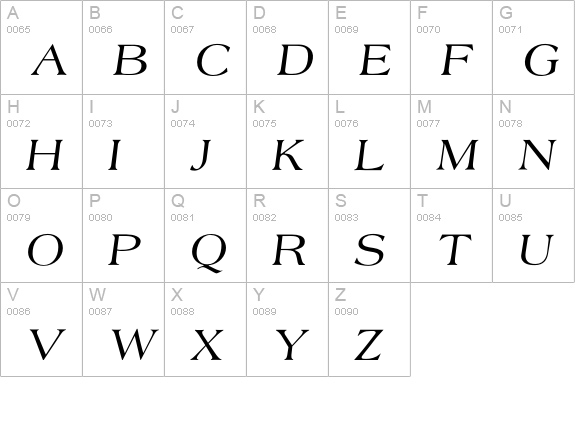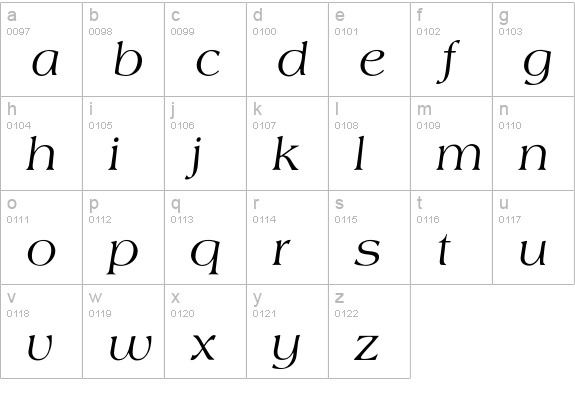
AmericanaItalic Font Details
The AmericanaItalic font embodies the essence of classic Americana design with a modern twist. Its elegant and sleek italic style exudes sophistication and charm, making it perfect for a wide range of design projects. Whether you're working on branding, packaging, invitations, or any other creative endeavor, AmericanaItalic adds a touch of timeless beauty to your work. The best part? AmericanaItalic is available for free download at FontsMarket.com. This means you can easily access this stunning font and incorporate it into your designs without any hassle. Don't miss out on the opportunity to elevate your projects with the elegant charm of AmericanaItalic. Download it today and see the difference it can make in your work!